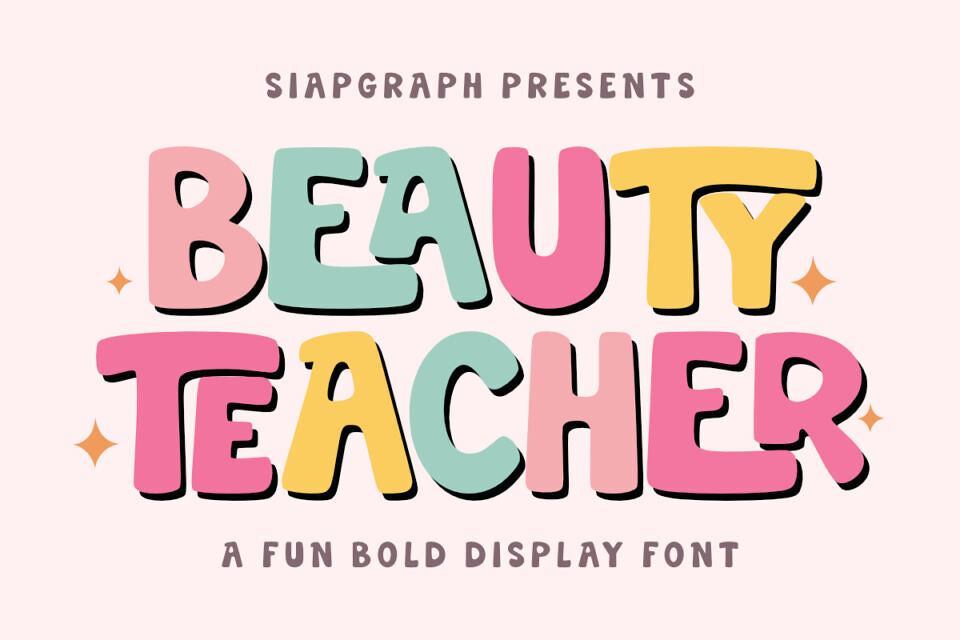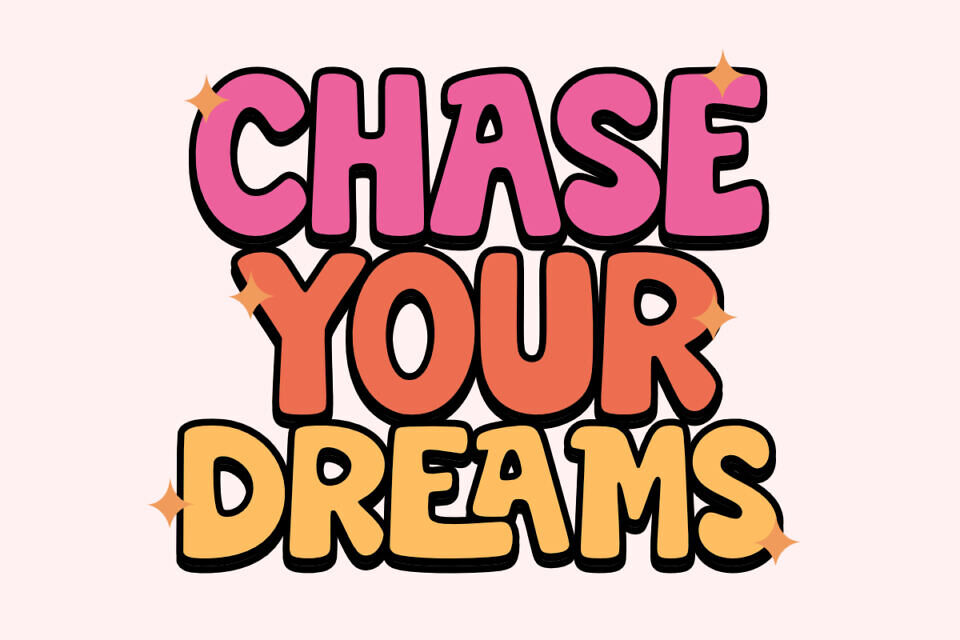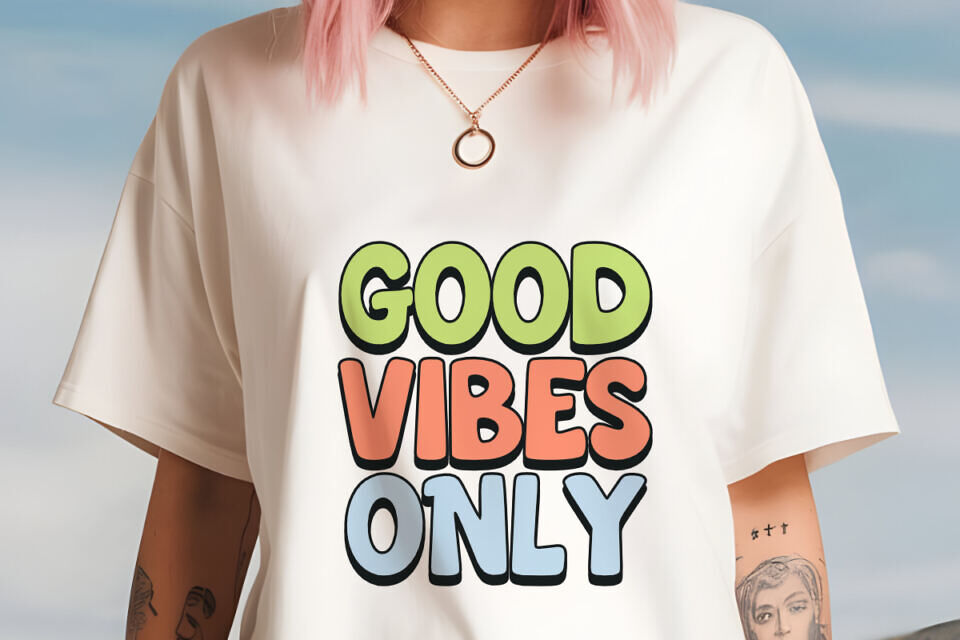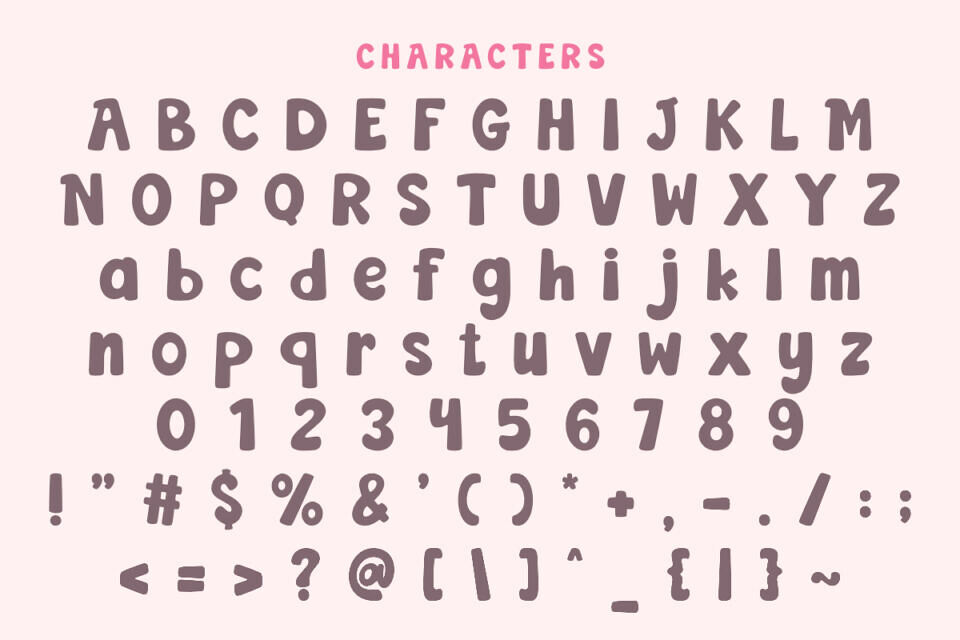
Beauty Teacher is a fun and bold display font that radiates joy and creativity. With its chunky and colorful letterforms, this font is perfect for making your designs stand out in a cheerful and friendly way.
Ideal for branding, classroom projects, children’s books, t-shirts, posters, stickers, invitations, packaging, and digital designs, Beauty Teacher will add a playful and energetic touch to every creation.